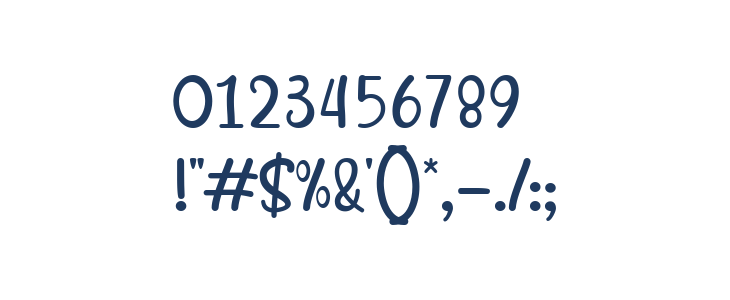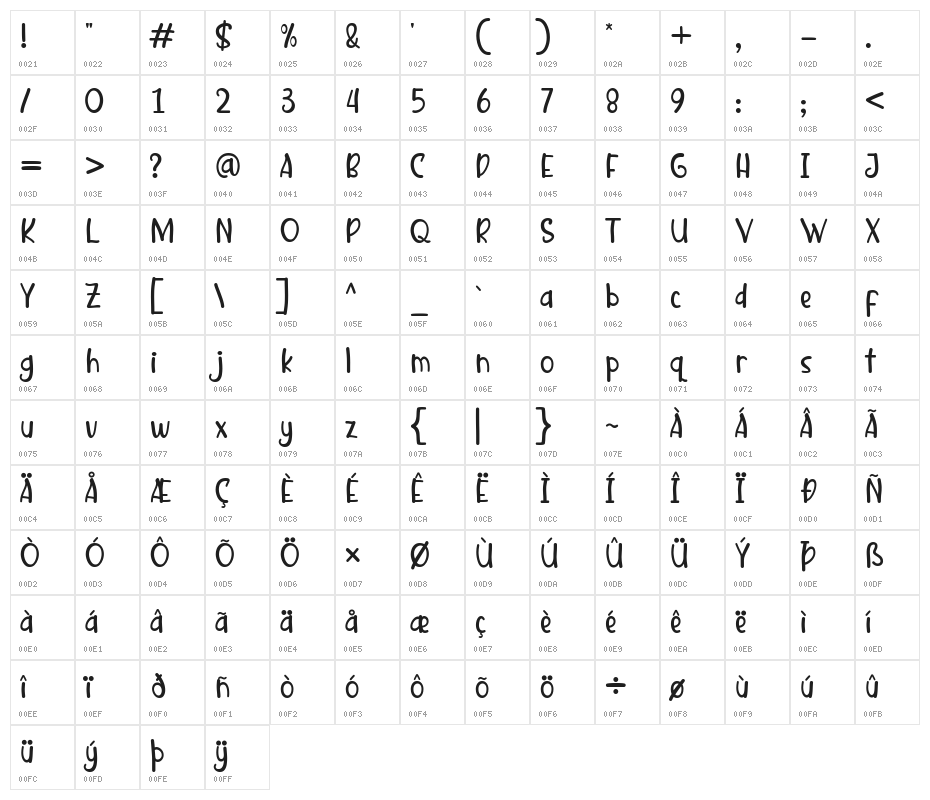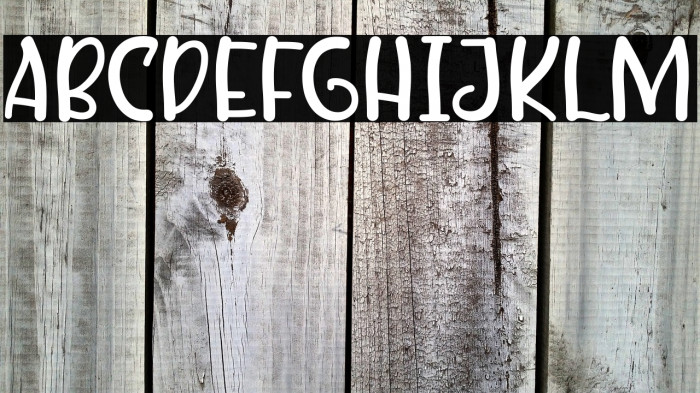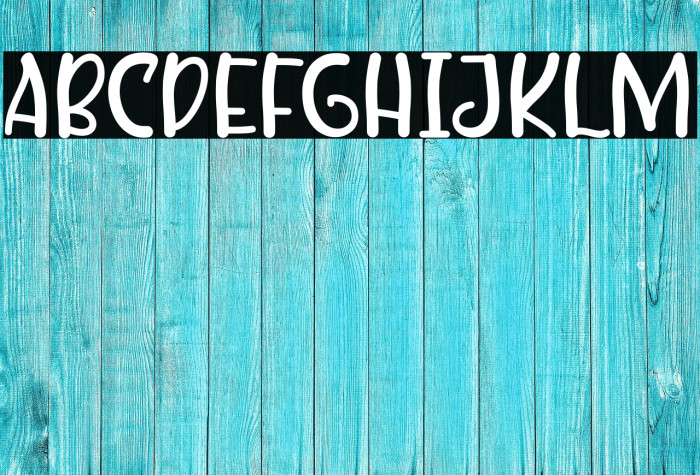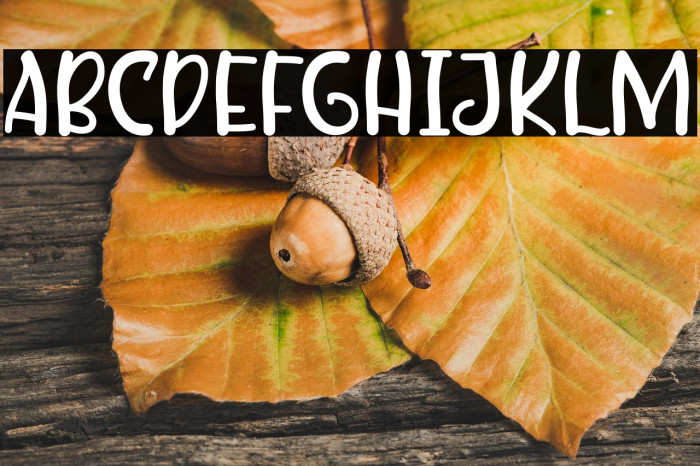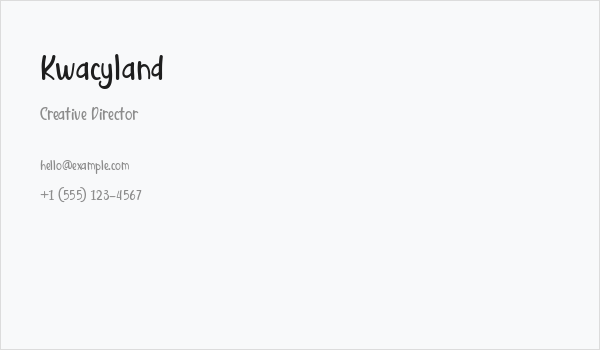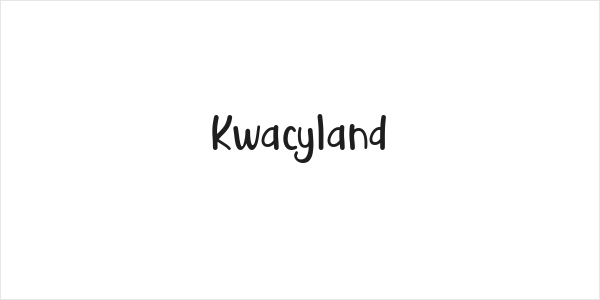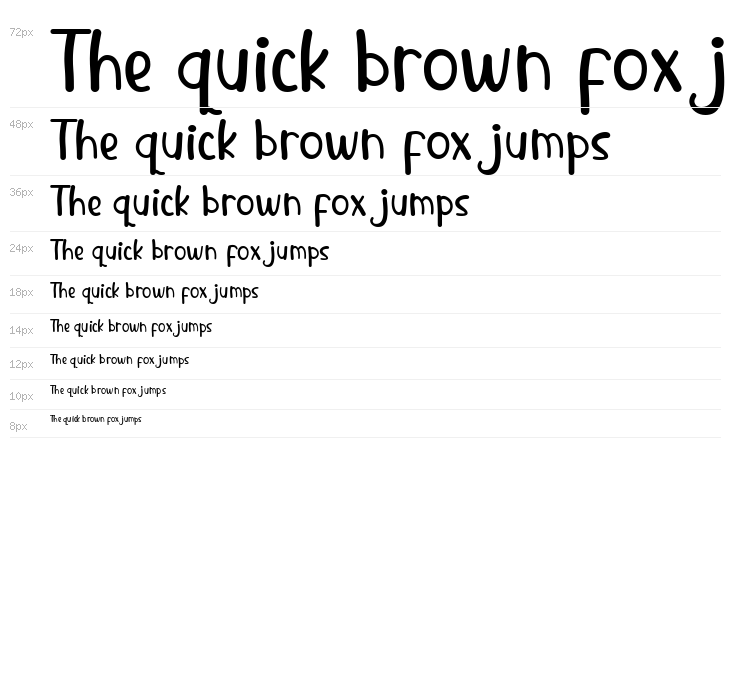
Kwacyland Font
Kwacyland Description
This playful and whimsical font features a handwritten style with a casual, friendly appearance. The letters are slightly irregular, giving it a natural and organic feel. The strokes are consistent in width, providing a uniform look across all characters. The uppercase letters are bold and prominent, while the lowercase letters maintain a charming, approachable demeanor. Numbers and special characters are crafted with the same playful touch, making this font versatile for various creative projects.
Overall StyleCasual, Playful
Use CaseHeadlines, Logos, Informal Text
Proposed ProjectsIdeal for children's books, greeting cards, playful branding, and casual invitations.